Your email signature is much more than just a way to sign off; it acts as a professional branding tool. Every detail in your signature, including the font, reflects your personal or business identity. Choosing the best font for email signature ensures you leave a positive and lasting impression on every recipient. A clean, well-designed signature can significantly enhance your credibility and professionalism. Thatโs why paying attention to typography is critical for effective communication.
With the right font, your email signature can look cleaner, more attractive, and significantly more polished. In this comprehensive guide, weโll dive into the importance of selecting the perfect font for your email signature. We will also highlight some good fonts for email signature that are highly recommended by design experts. Additionally, weโll share practical tips to ensure your email sign-off stands out in a crowded inbox. Letโs explore how a small design choice can make a big impact on your overall professional image.
Choosing the right font for your email signature is crucial because it represents you and your brand even when you’re not in the room. A well-designed signature enhances readability, builds trust, and communicates professionalism.
Hereโs why font choice is so important:
Understanding these points helps you prioritize choosing an attractive yet professional typeface that enhances your email signature’s effectiveness.
Now, letโs look at the best font for email signature that can make your emails stand out in the inbox while maintaining a polished appearance.
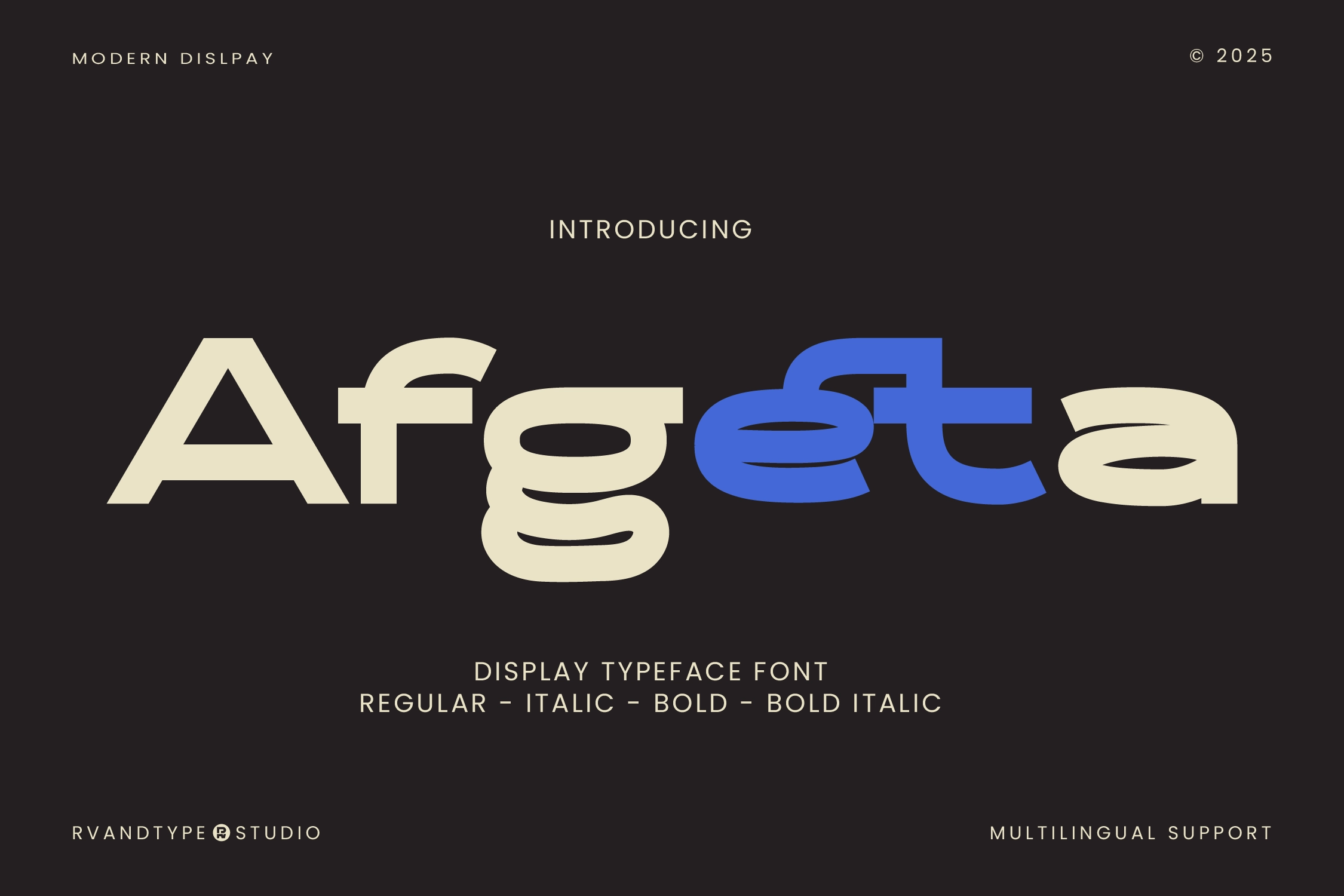
Afgeta brings a stylish yet clean design ideal for creative professionals, startups, and personal branding. Its modern sans-serif structure ensures clarity while adding a bit of flair to your signature. Afgeta is among the most attractive fonts for email signature that still maintains a professional appearance. It’s perfect for individuals or brands looking to add personality without compromising professionalism. Harenaโs visual balance makes it an excellent choice for email communication.
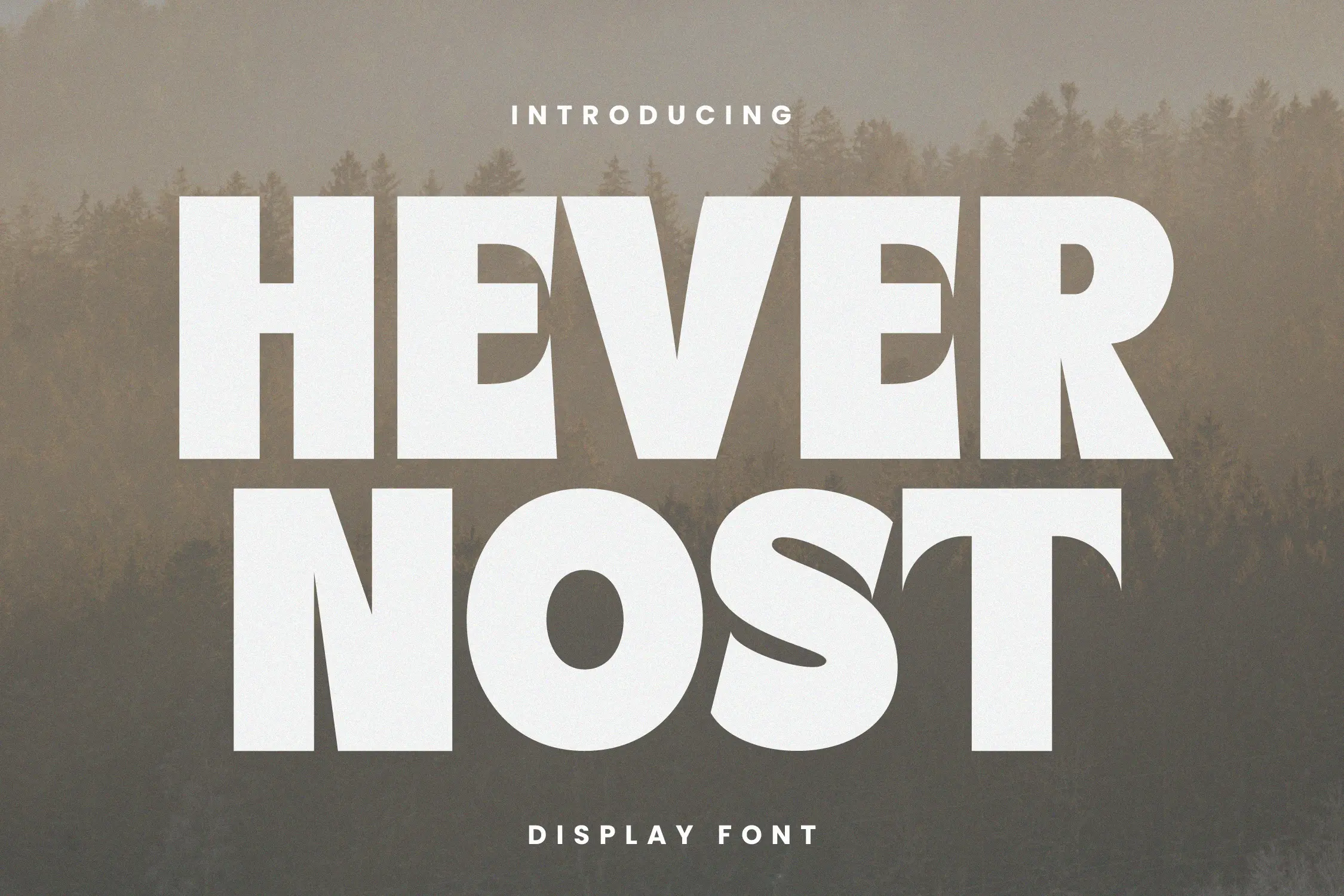
Havernost is a modern display font with clean edges and a distinctive personality, making it a strong contender for email signatures that aim to be both stylish and professional. Its sleek and slightly condensed letterforms allow it to stand out without overwhelming the content. Ideal for creative professionals, digital agencies, or personal brands, Havernost strikes the right balance between modern flair and business-appropriate typography. It works best for your name or title in the signature, paired with a more neutral body font. If you’re seeking an attractive font for email signature with a unique touch, Havernost is a confident choice.
Georgia is a classic serif font that is widely recognized and renders beautifully across email clients. Its traditional feel makes it an excellent choice for lawyers, consultants, and corporate professionals. Georgiaโs elegance and excellent legibility at smaller sizes make it a solid option among good fonts for email signature.
Verdana is a sans-serif font specifically designed for screen display, making it one of the most readable fonts for digital formats. Its wide spacing and large letters ensure it remains clear even on small devices like smartphones. Verdana is perfect if you prioritize clarity and a simple yet professional look.
One of the safest bets for email signatures, Arial is a sans-serif font known for its clean lines and simplicity. It renders perfectly across almost every email client, ensuring your signature looks the same for everyone. Arial remains a staple in the world of good fonts for email signature.
A classic serif font, Times New Roman lends an air of tradition and authority. Itโs a great fit for legal, academic, and governmental communication. While it may feel slightly formal, itโs an enduring choice for anyone who needs a highly recognizable and professional font for email signature.
Open Sans is a humanist sans-serif typeface favored for its legibility and modern feel. It’s clean and approachable, making it ideal for businesses in health, education, tech, and finance. Open Sans performs beautifully across screens and sizes.
If you want your signature to have a modern, geometric look, Poppins is a wonderful choice. Its rounded characters bring friendliness, while maintaining a polished appearance, making it one of the attractive fonts for email signature.
Helvetica is synonymous with clean design. Used by global brands and corporations, it embodies professionalism, simplicity, and universality. Helveticaโs neutral tone makes it one of the best choices when you want your email signature to look serious yet modern.
Lato offers a soft, friendly sans-serif look that is excellent for email signatures. Its semi-rounded letters make it feel warm without compromising its professional appeal. If you’re aiming for a modern, human-centric brand image, Lato is a perfect fit.
Why is choosing a good font for email signature important?
Choosing a good font ensures your signature looks professional, is easy to read, aligns with your brand identity, and maintains a consistent appearance across email platforms.
Can I use decorative fonts in my email signature?
Itโs best to avoid overly decorative fonts, as they can affect readability and may not render correctly on all devices; stick to clean and professional fonts instead.